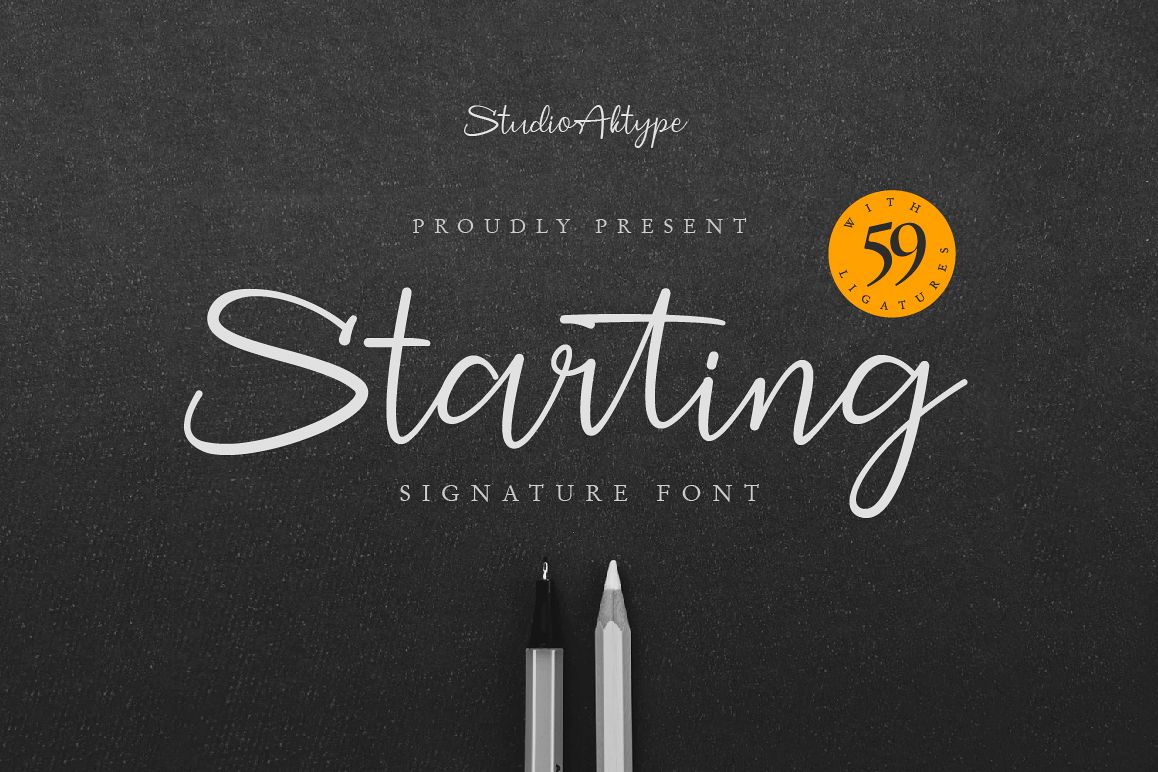
Starting Signature
Starting
hi ;) introduce our new Signature Font
He was named Starting
Starting is made for the purposes of branding design, the scratches look flowing naturally, it is perfect for designing your own brand and for other branding designs, these letters look perfect on all printing techniques, foil emboss, embroidery, and others.
Starting has a full set of
- Special Ligatures
- Numbers, Punctuation & Multilingual Symbols